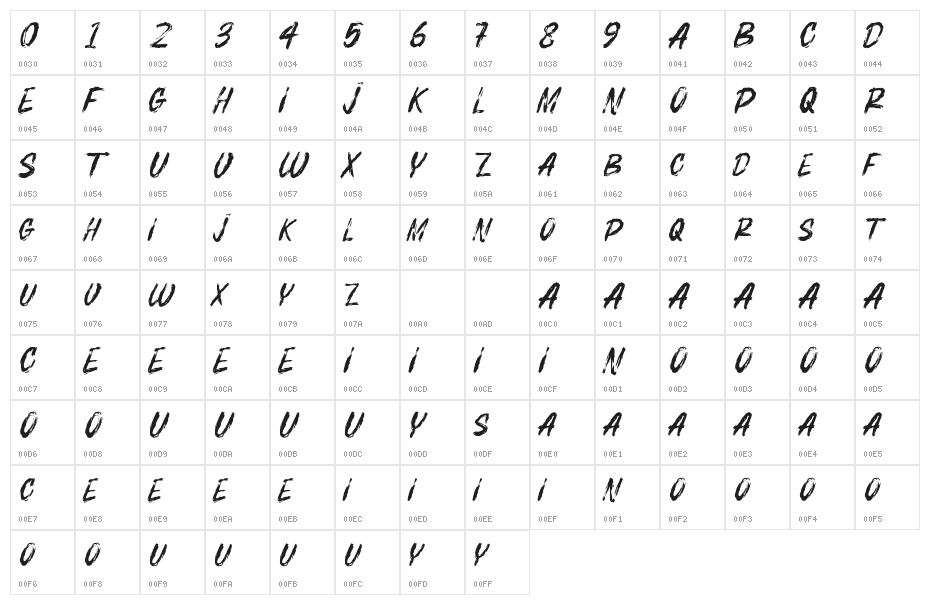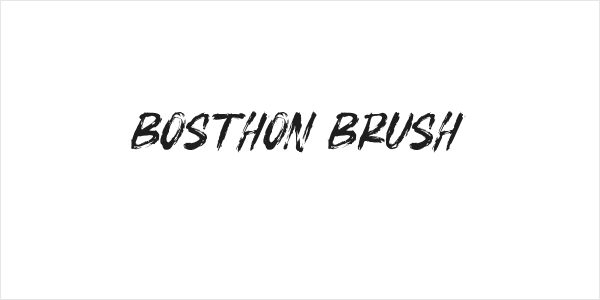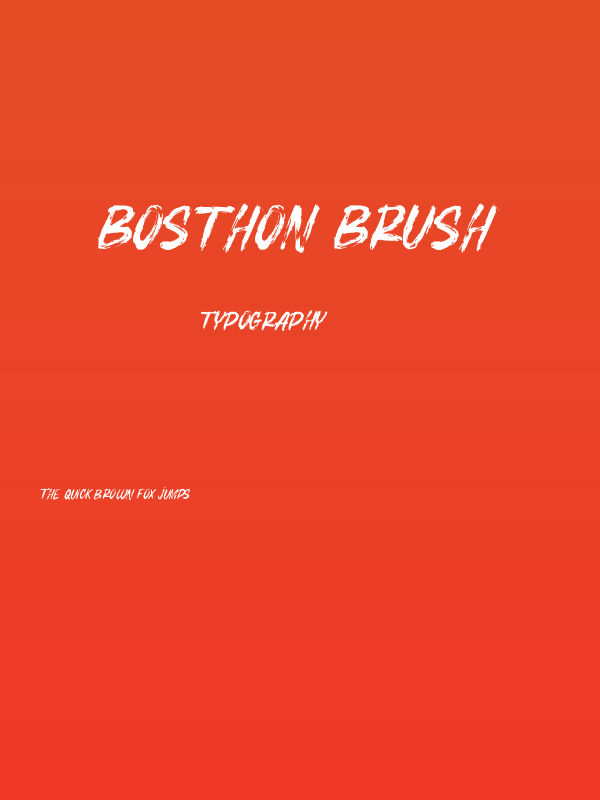
BOSTHON BRUSH Font
BOSTHON BRUSH Description
This font features a dynamic and energetic brush style, characterized by its bold and expressive strokes. Each letter appears as if it has been painted with a brush, giving it a raw and artistic feel. The irregular edges and varying stroke thicknesses contribute to its handcrafted appearance. It conveys a sense of movement and spontaneity, making it ideal for creative and informal designs. The uppercase and lowercase letters maintain a consistent style, while the numbers and special characters seamlessly integrate with the overall aesthetic.
| Proposed Projects | Ideal for branding, posters, album covers, and any project requiring a bold, artistic touch. |